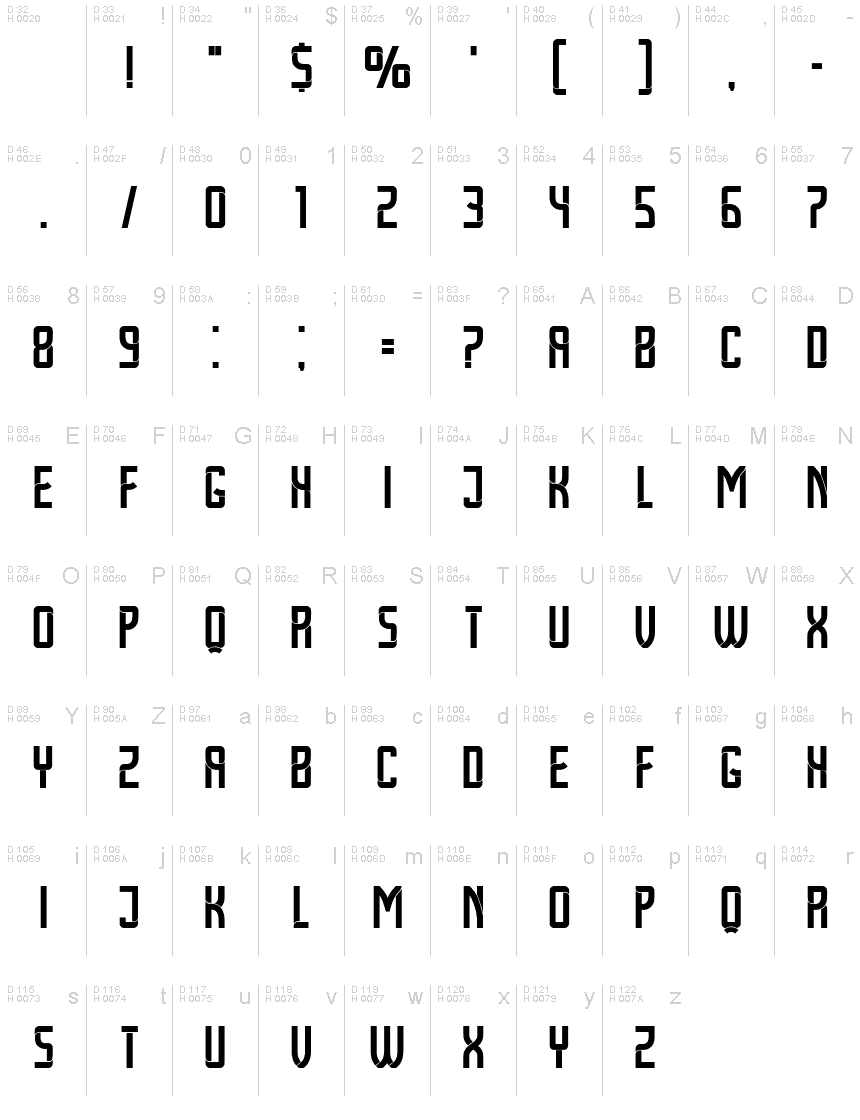
Loyalist Condensed
Loyalist Condensed font is a cool display typeface designed by Vladimir Nikolic.
"Loyalist" comes in Regular and Condensed variant!